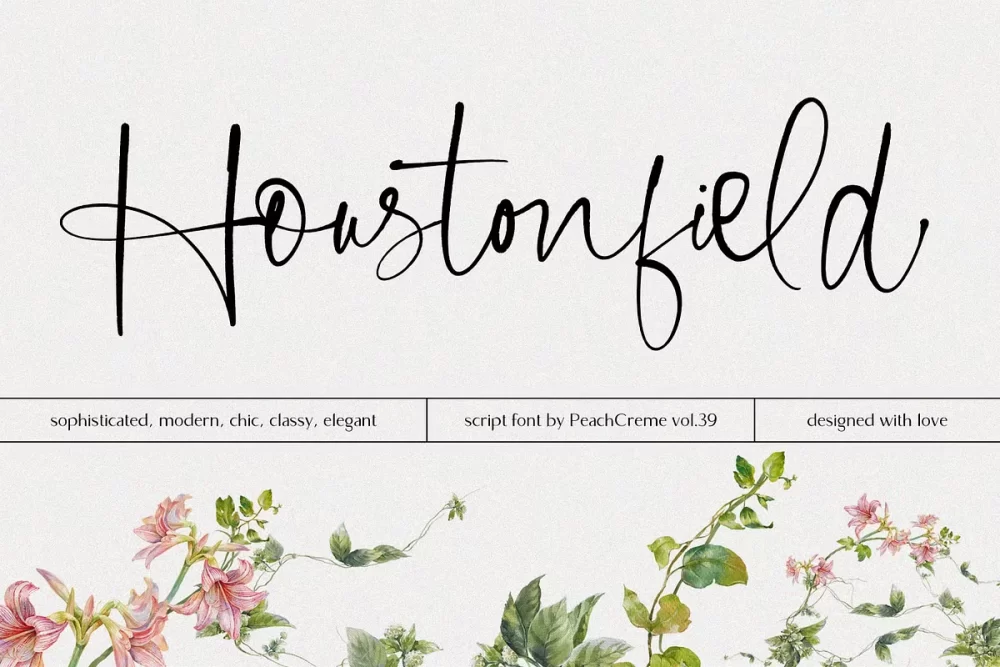
Houstonfield is a stylish, chic script font. Add a touch of luxe and elegance to your projects. It’s perfect for signature logos, wedding invites, wine labels, and many more.